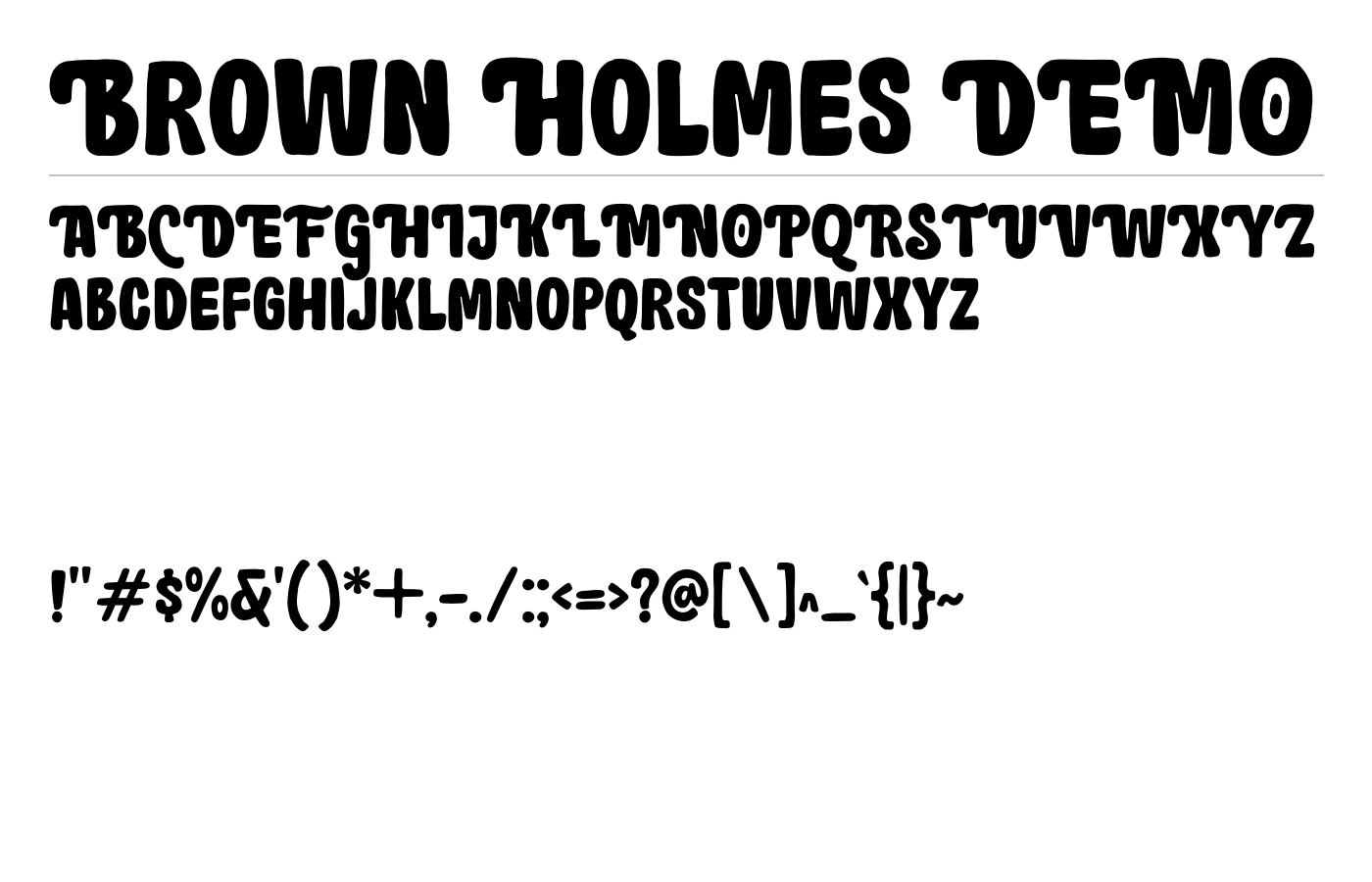
Brown Holmes DEMO is a bold, playful display font with chunky, rounded letterforms that bring a fun and approachable vibe. Its thick strokes and whimsical shapes make it ideal for eye-catching headlines, logos, and designs in creative or informal contexts where a lively personality is desired. This font works best in attention-grabbing uses like posters or children’s branding, where its energetic style can shine.
Brown Holmes DEMO Font
About Brown Holmes DEMO Font
| Font family | Brown Holmes DEMO Font |